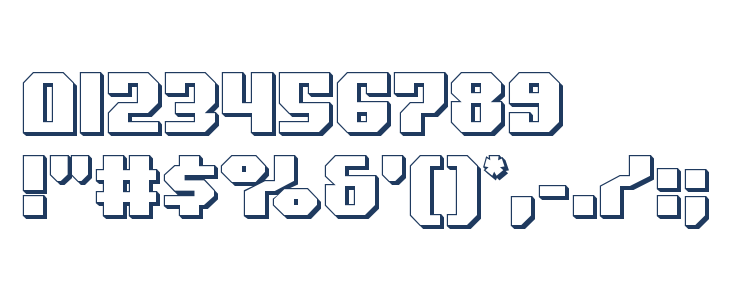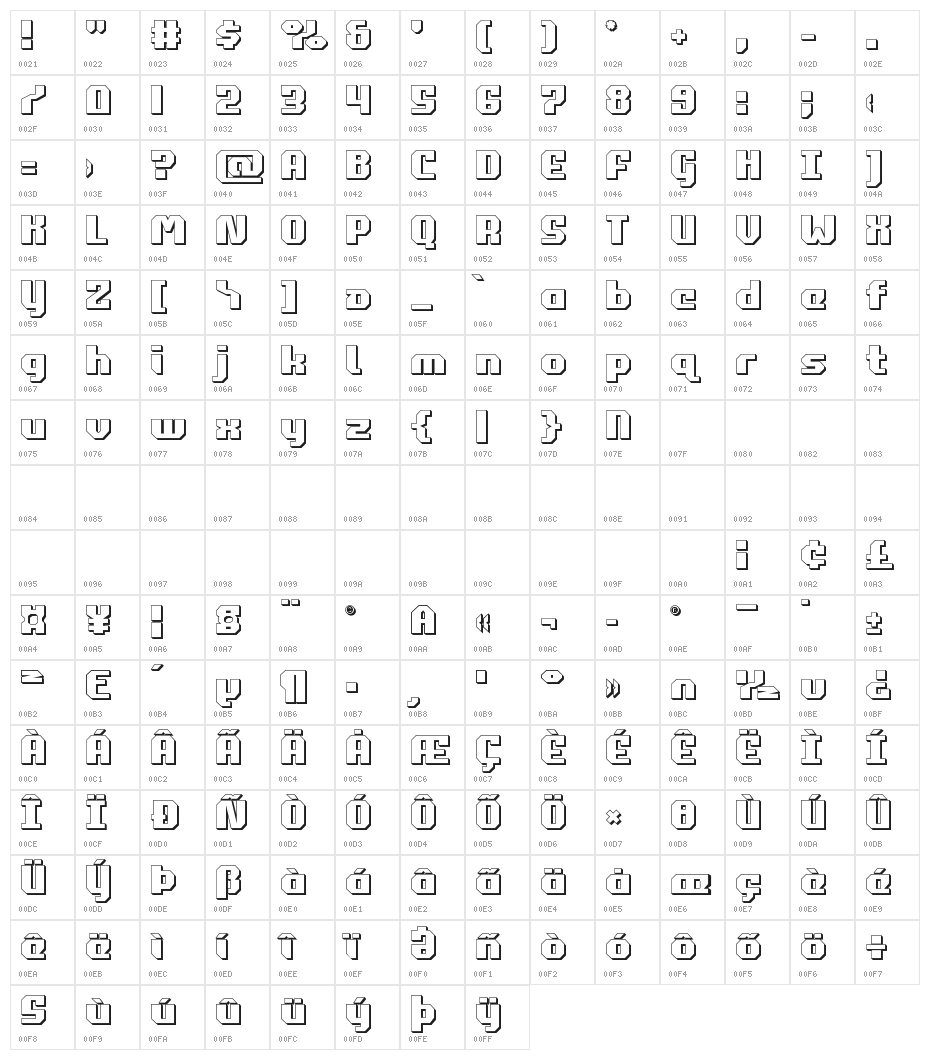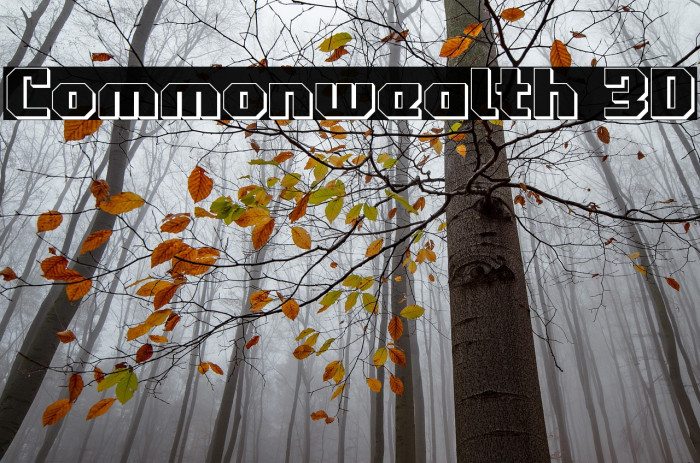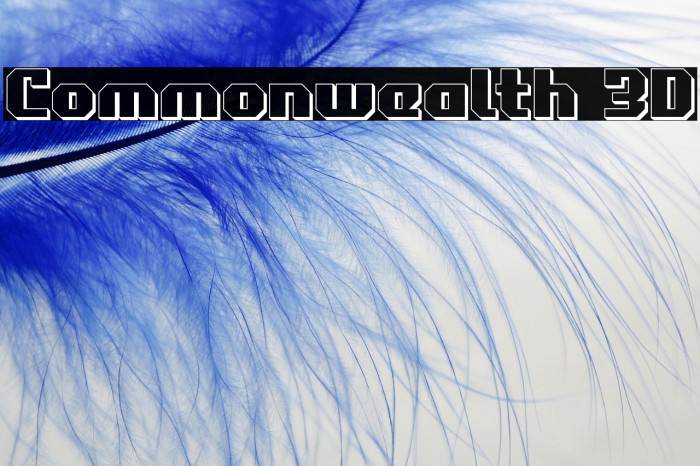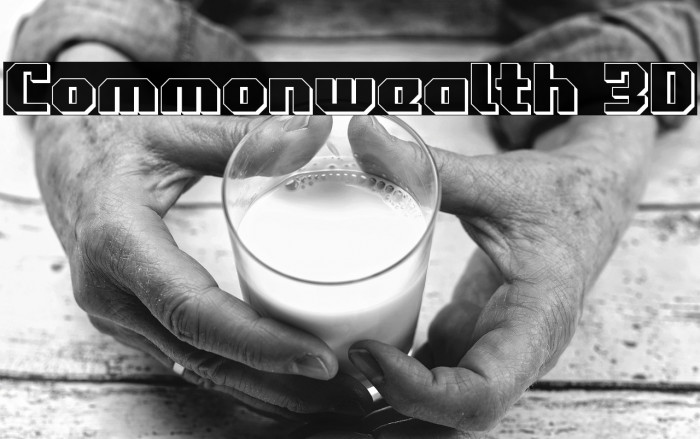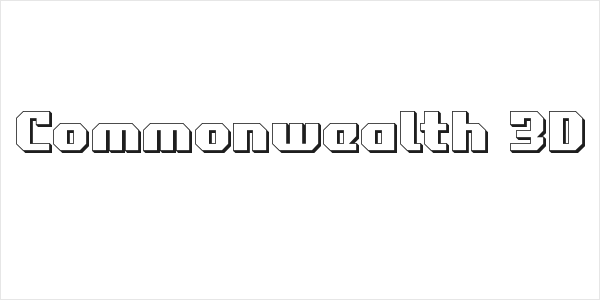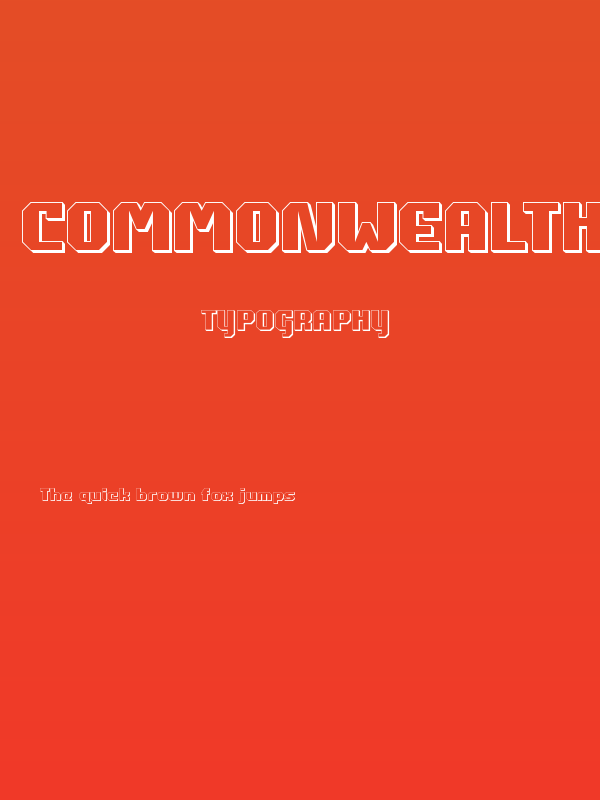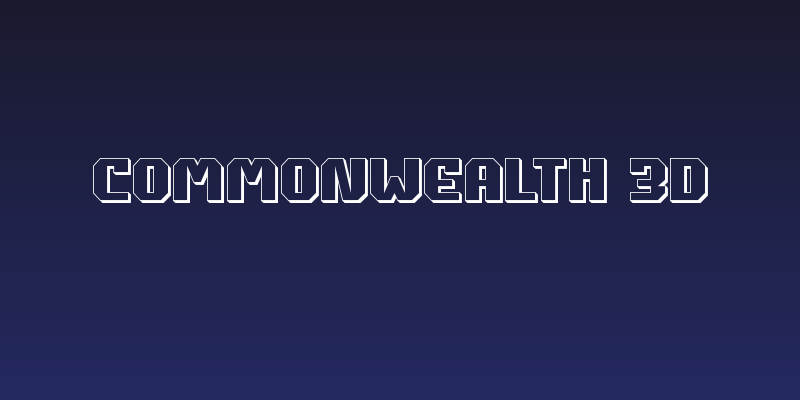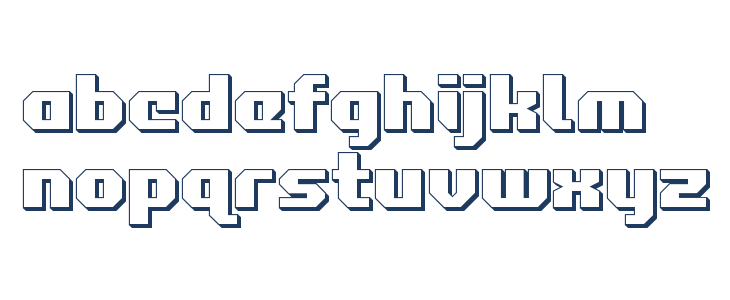
Commonwealth 3D Font
Commonwealth 3D Description
This font features a bold, three-dimensional design with a strong geometric structure. Each character is outlined with a shadow effect, giving it a distinct, blocky appearance. The uppercase and lowercase letters maintain a consistent style, with sharp angles and clean lines that create a sense of depth. The numerals and special characters follow the same design principles, ensuring uniformity across the font. This style is eye-catching and modern, making it suitable for projects that require a bold statement.
| Proposed Projects | Ideal for headlines, posters, logos, and any design needing a striking, modern look. |